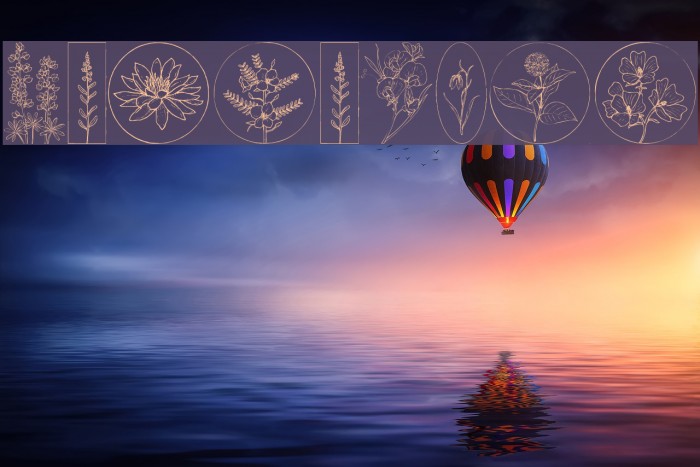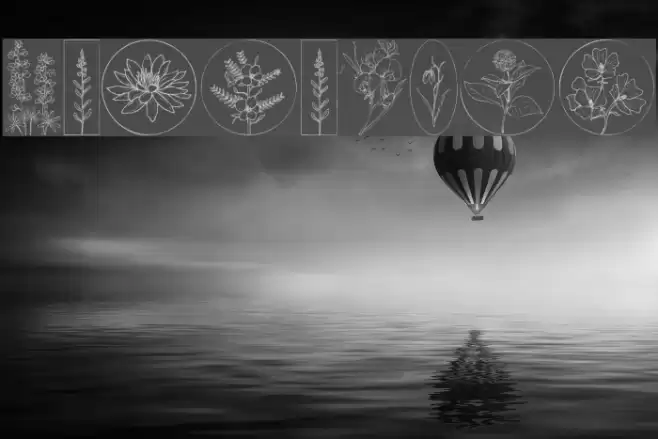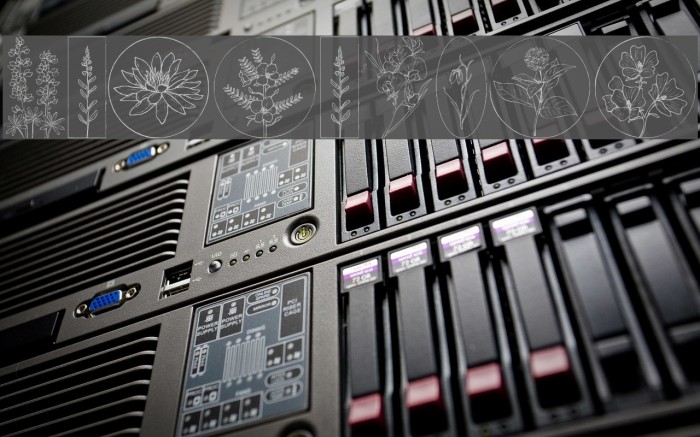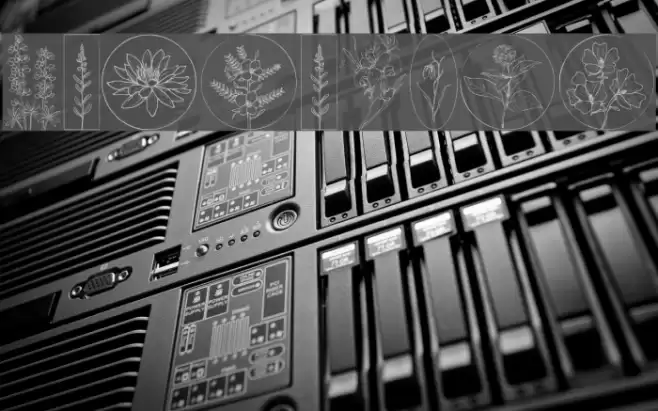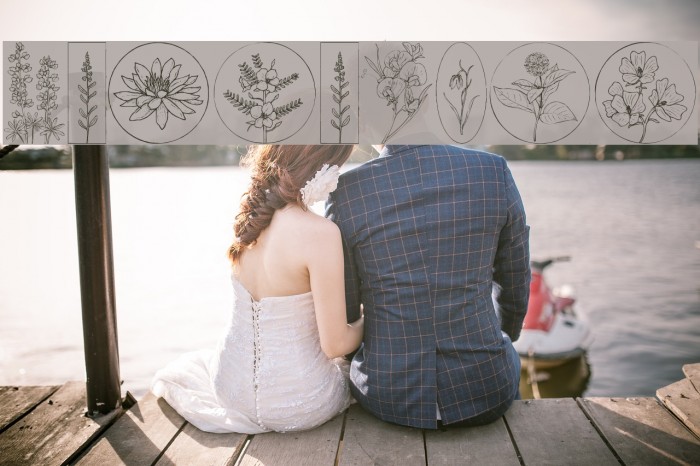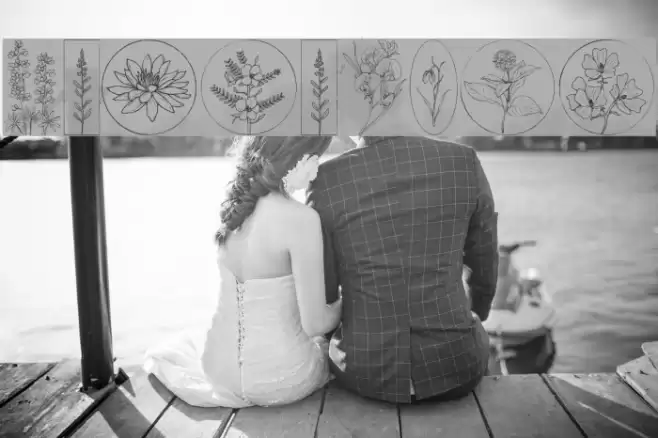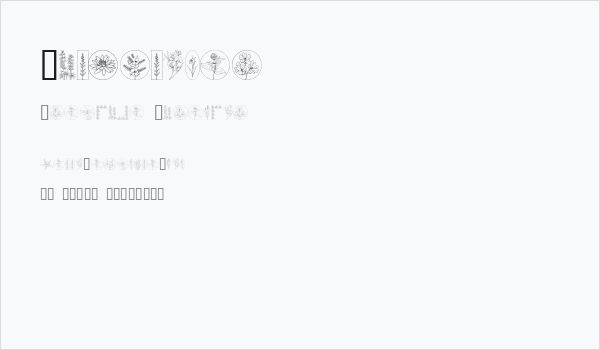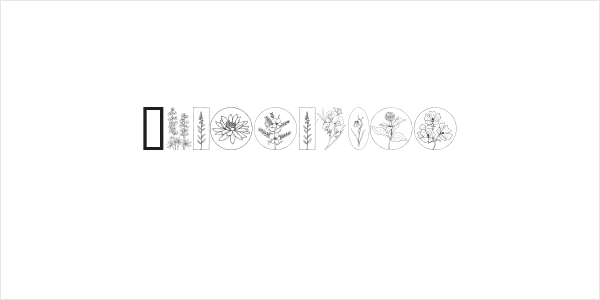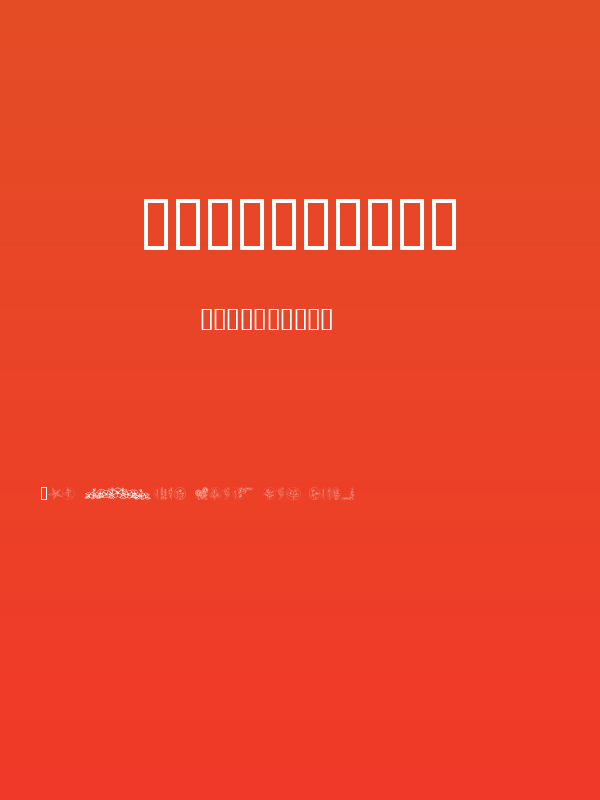
Wildflower Font
Wildflower Description
A decorative dingbat font featuring detailed, hand-drawn wildflower illustrations, each glyph representing a unique botanical design. The style is delicate and organic, with fine lines and intricate floral motifs, suitable for ornamental use rather than standard text.
| Overall Style | Decorative, Hand-drawn, Botanical |
| Use Case | Decorative elements, Borders, Icons, Logos |
| Proposed Projects | Wedding invitations, botanical branding, greeting cards, scrapbooking, decorative borders, nature-themed designs. |